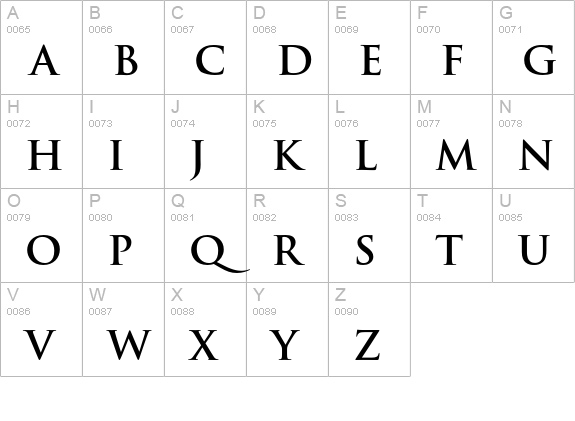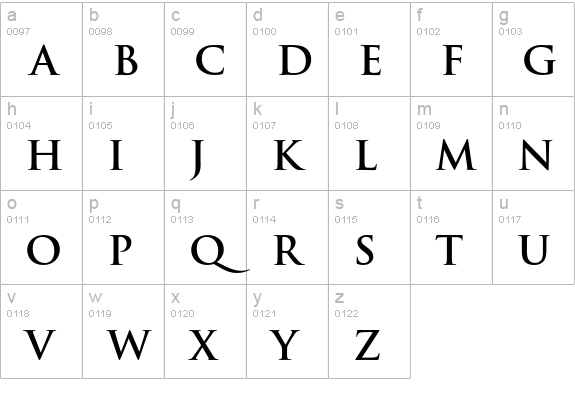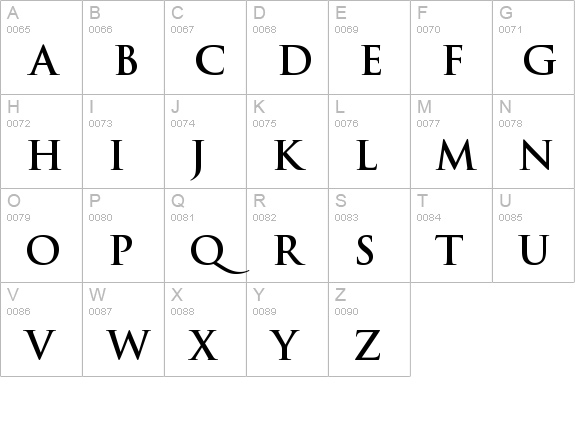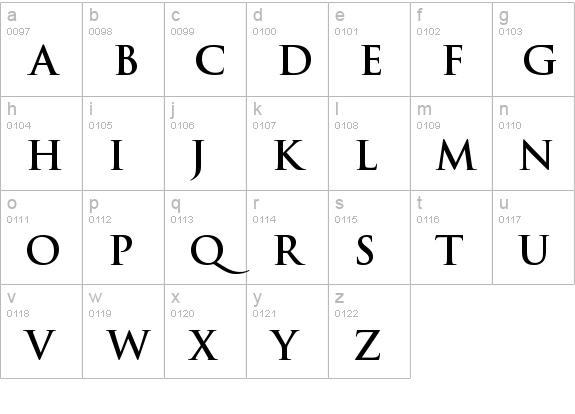
Trajan Bold Font Details
Trajan Bold is a strong, high-contrast variant in the Trajan typeface family \xE2\x80\x94 well suited to headlines, attention-grabbing titles, and strong calls-to-action.
Trajan Bold font is a stunning and powerful typeface that exudes elegance and authority. Its strong and bold letterforms are perfect for making a statement and capturing attention. With its clean lines and timeless design, Trajan Bold is a versatile font that can be used for a wide range of projects. Whether you're creating a logo, designing a poster, or crafting a headline, Trajan Bold will elevate your typography to new heights. Its distinctive and commanding presence will ensure that your message stands out and leaves a lasting impression. What makes Trajan Bold even more appealing is that it is available for free download at FontsMarket.com. This means that you can enhance your designs without breaking the bank. Whether you're a professional graphic designer or a hobbyist, having access to high-quality fonts like Trajan Bold can make all the difference in your creative process. Not only does Trajan Bold offer a visually stunning aesthetic, but it also provides excellent readability and legibility. Each character is meticulously crafted to ensure clarity and ease of reading, even at small sizes. This makes Trajan Bold an ideal choice for any project where communication is key. The versatility of Trajan Bold extends beyond its visual appeal. It is a font that can seamlessly adapt to a wide range of design styles and themes. Whether you're going for a classic and refined look or a modern and edgy vibe, Trajan Bold can effortlessly complement your vision. With its timeless design, powerful presence, and free availability at FontsMarket.com, Trajan Bold is a font that should not be overlooked. Download it today and let it elevate your designs to new levels of sophistication.